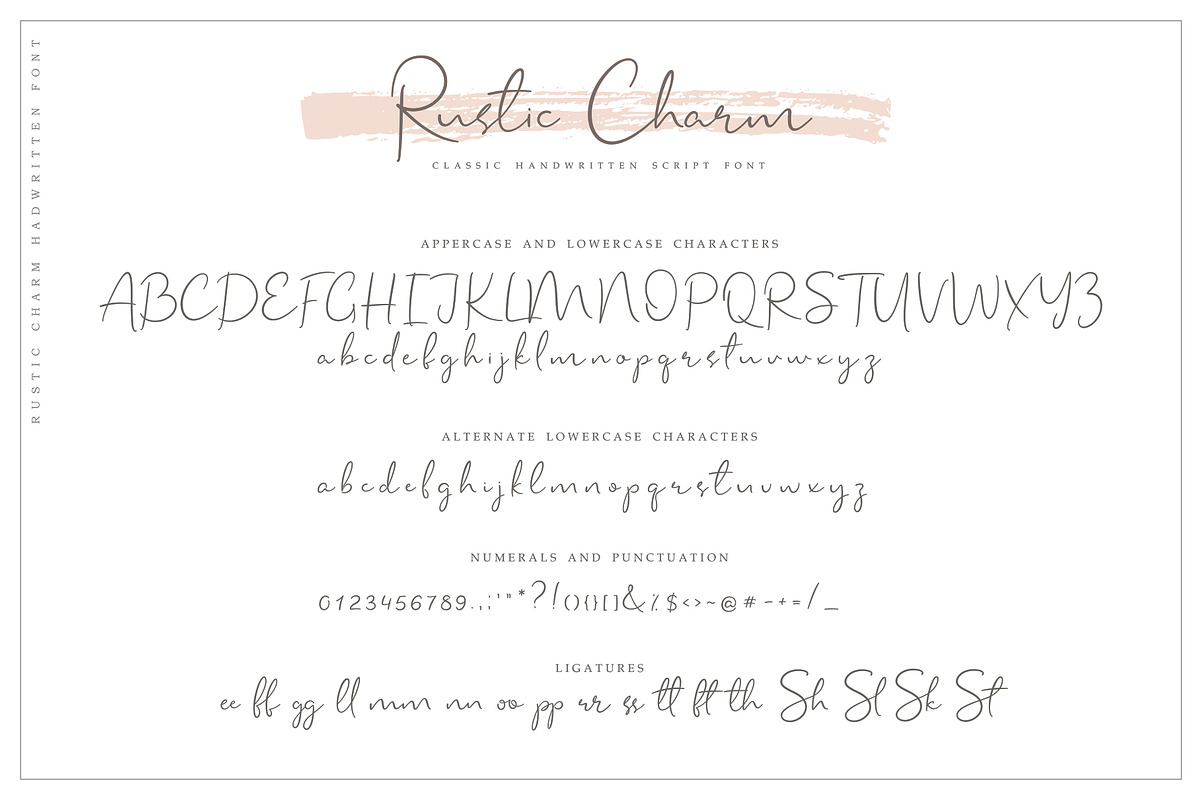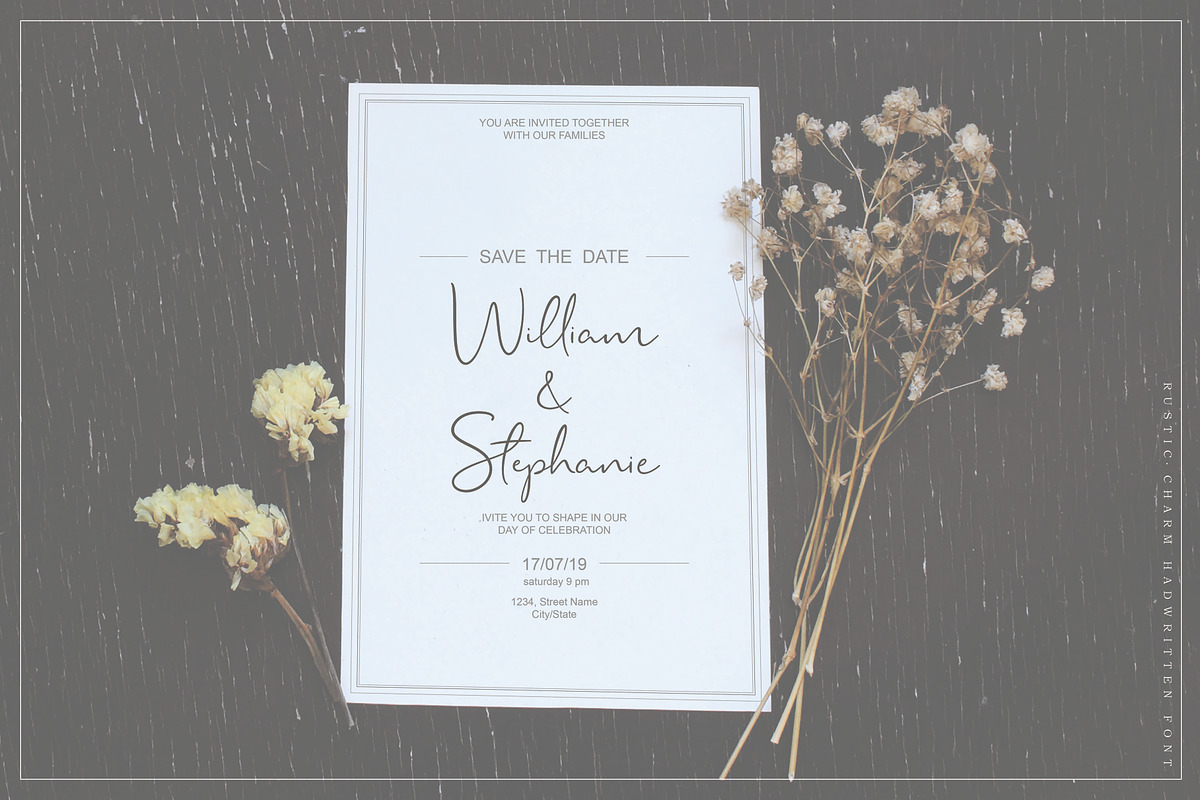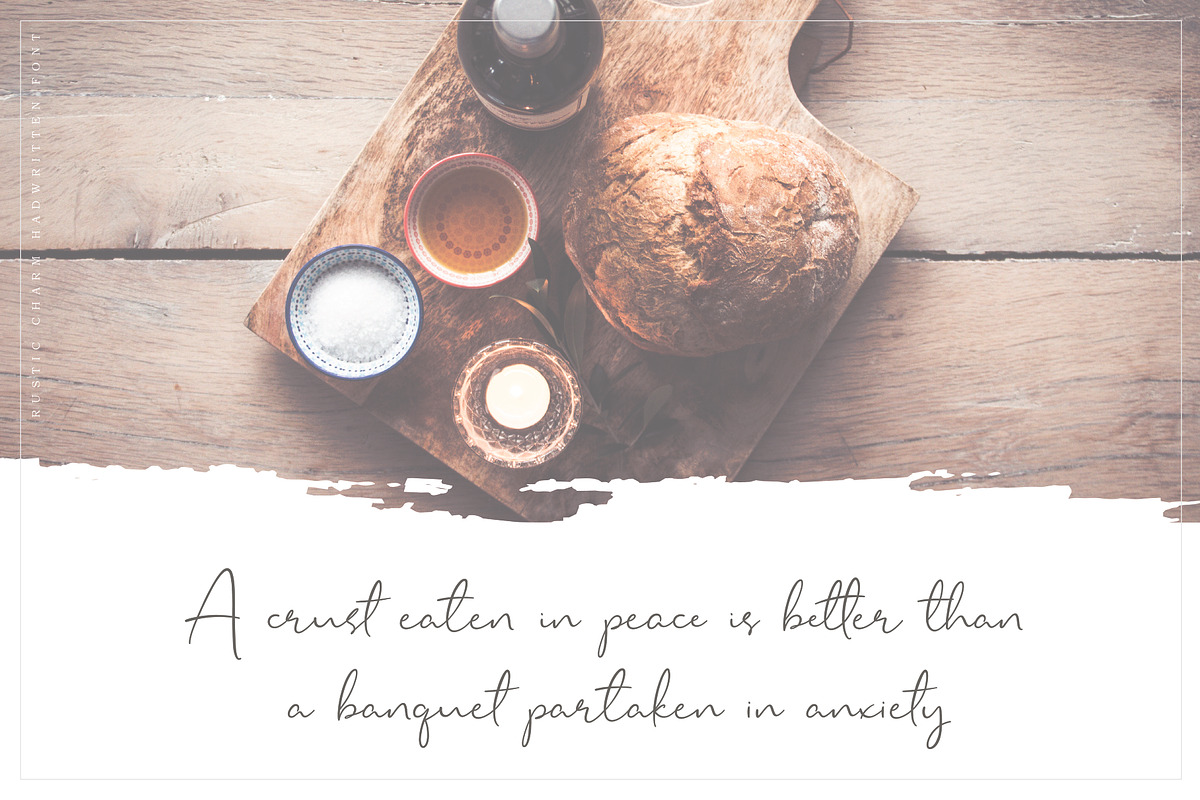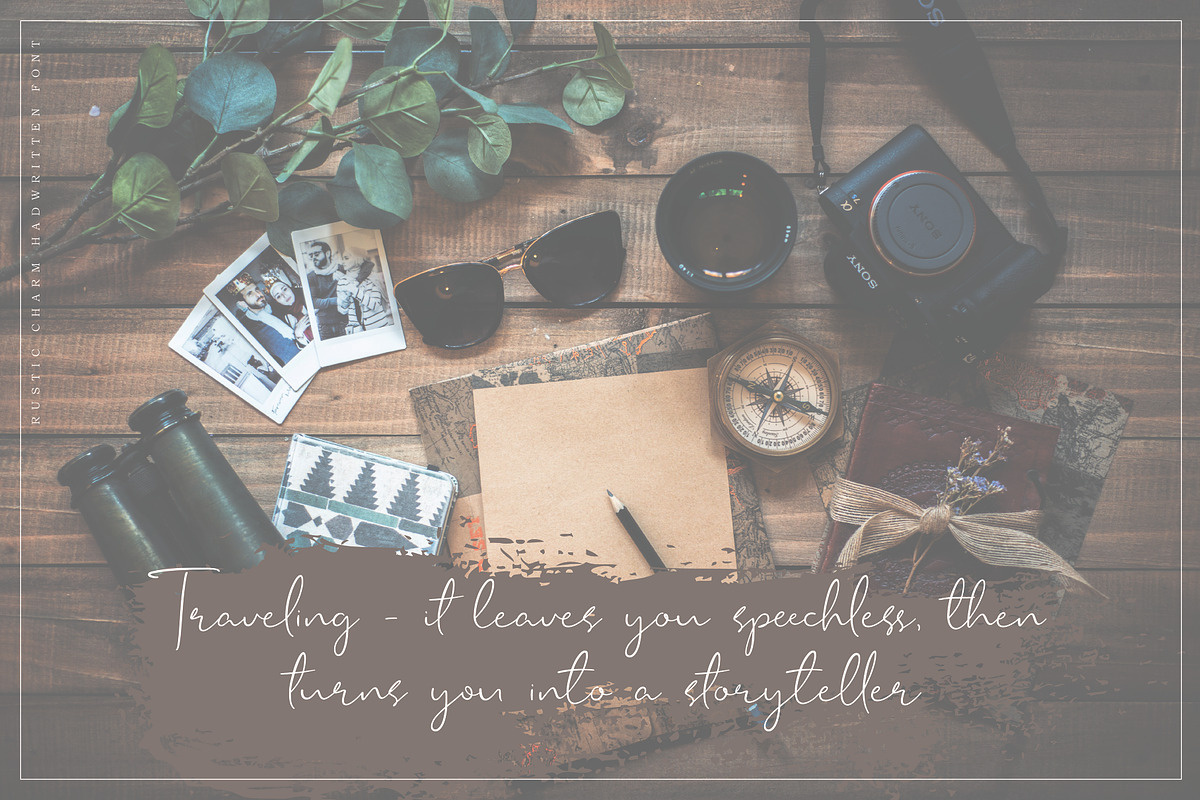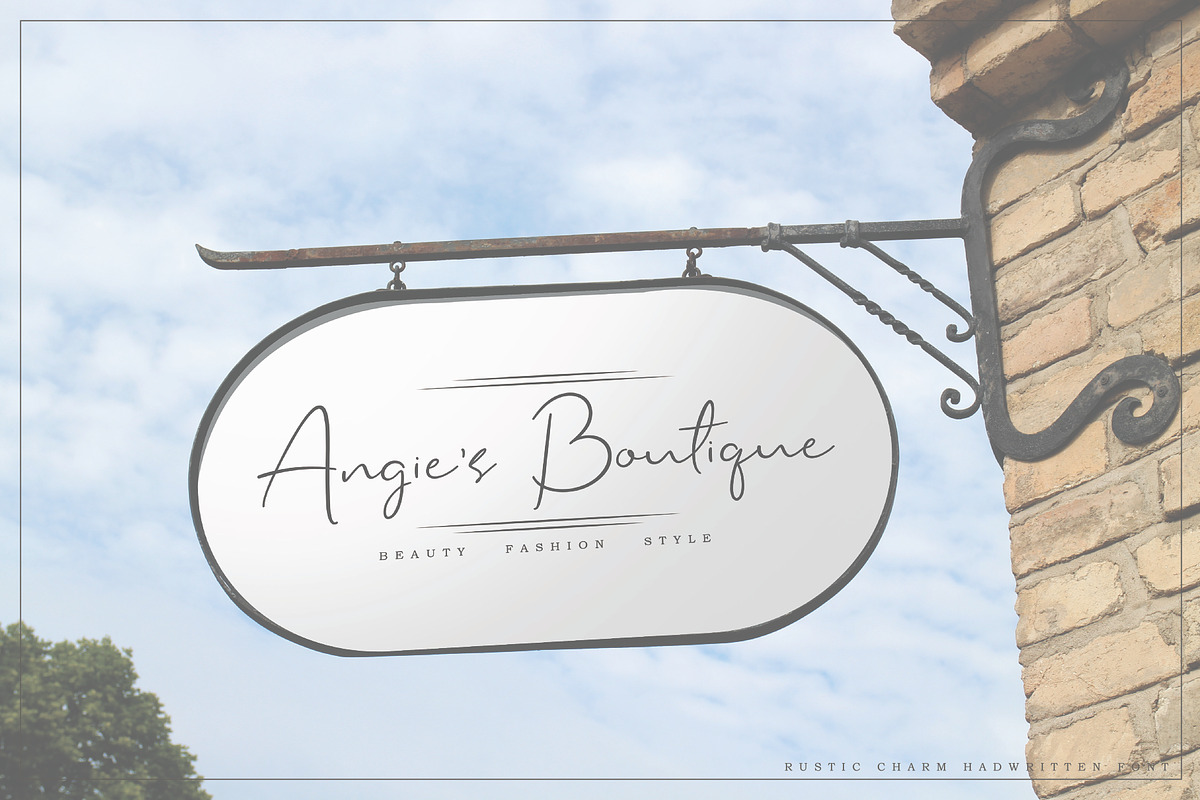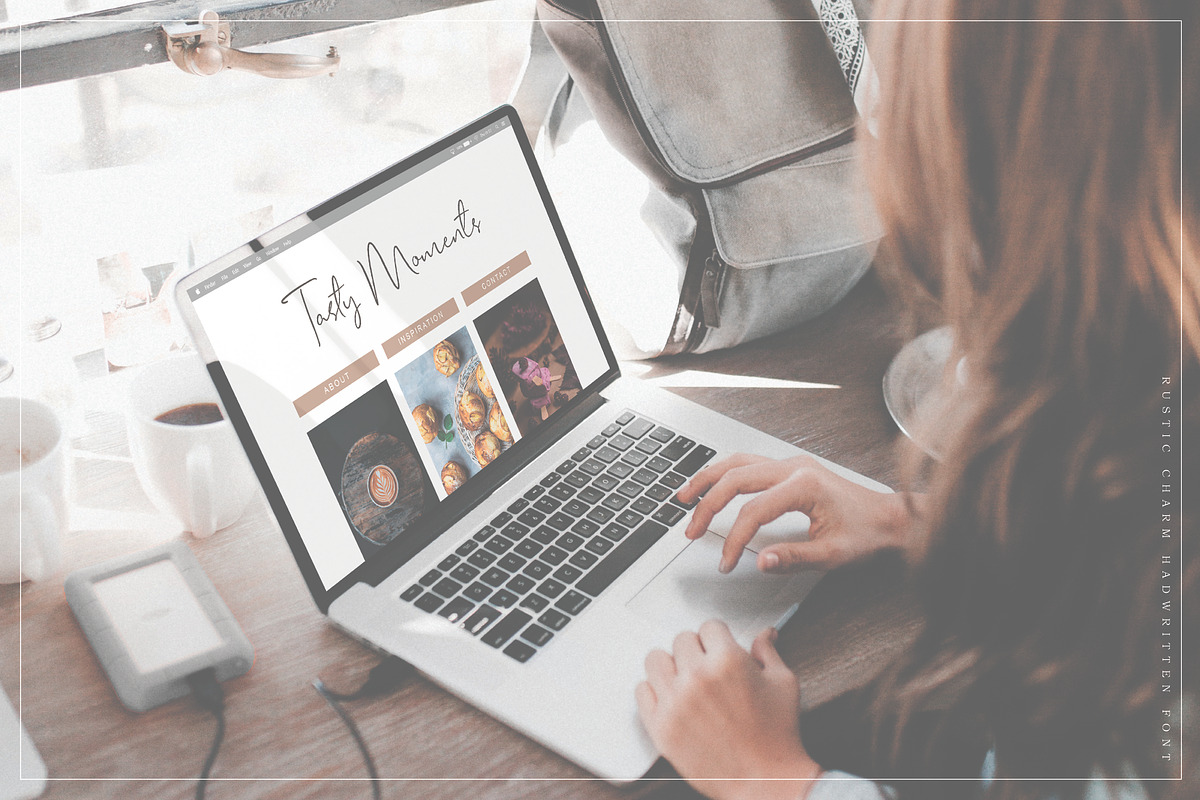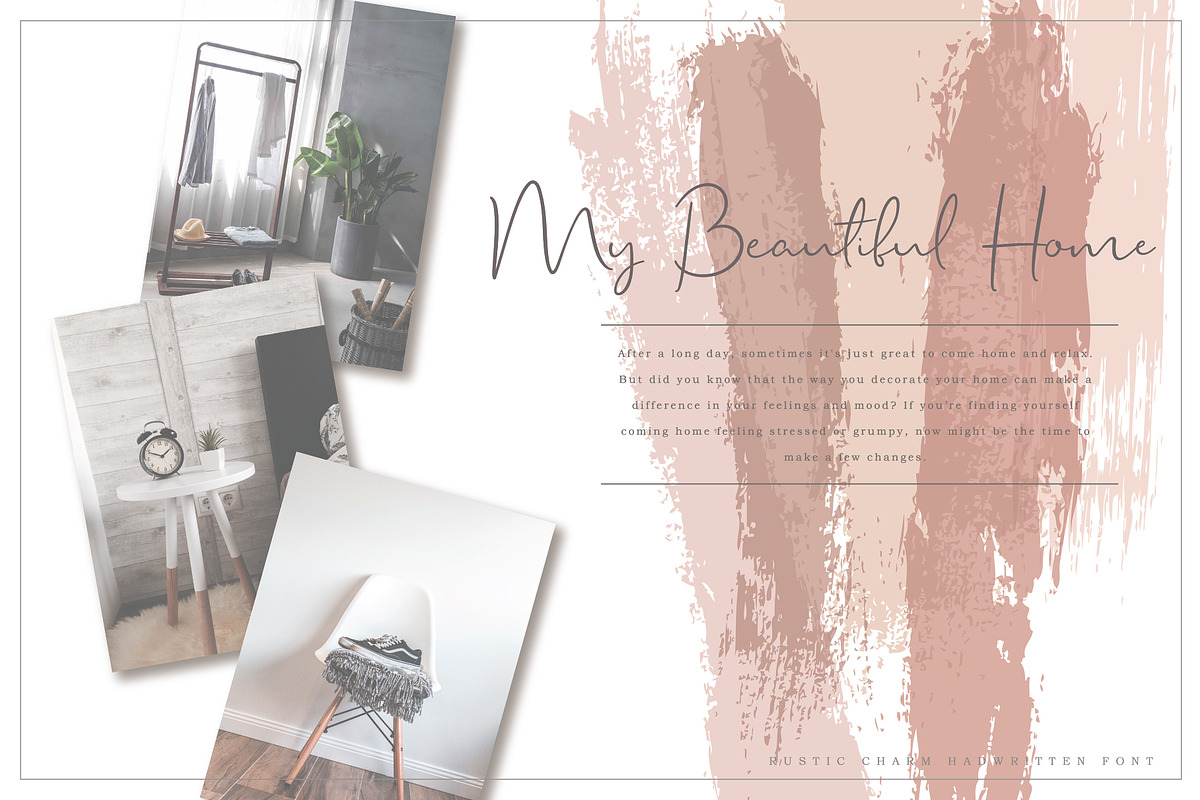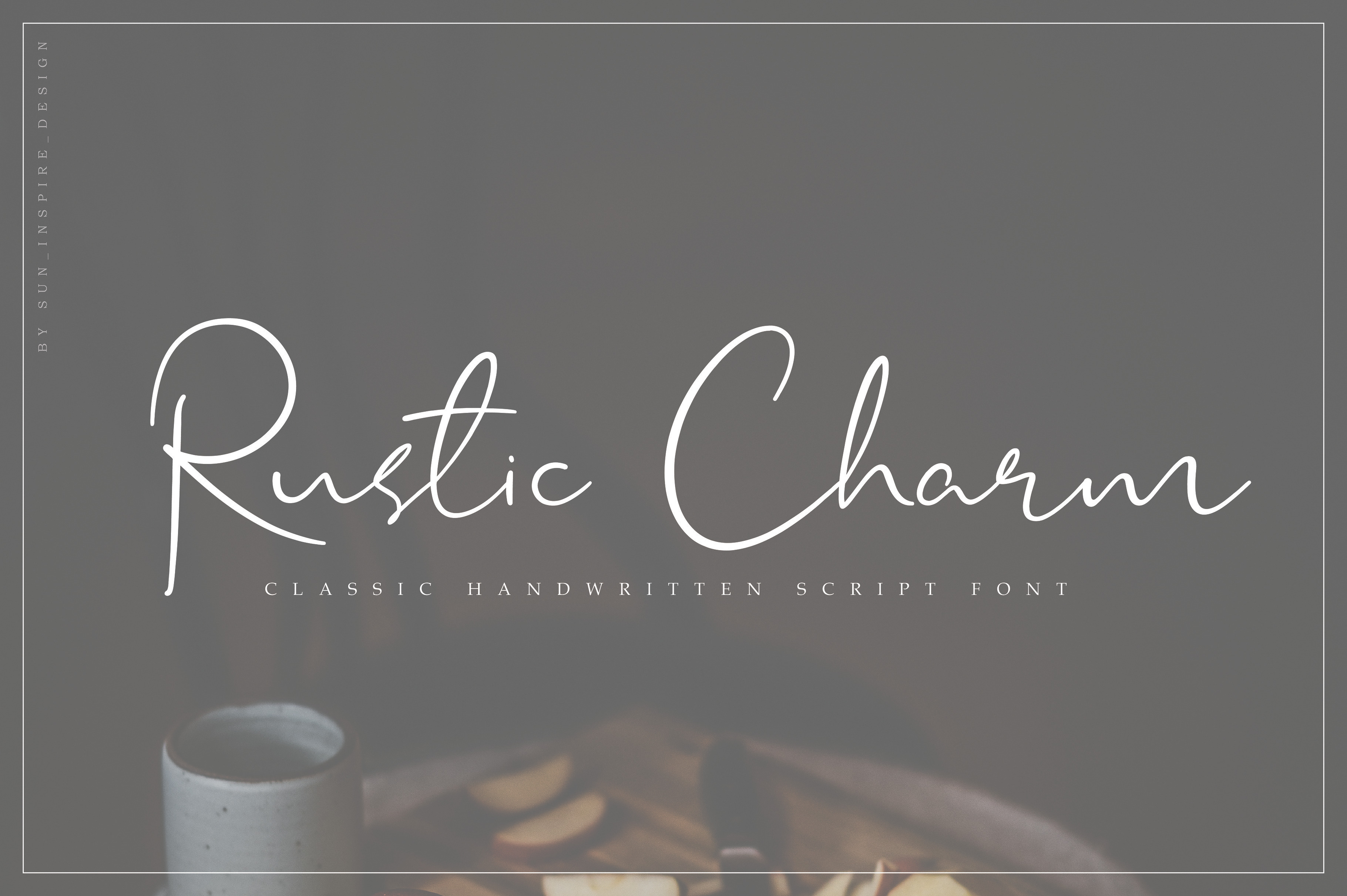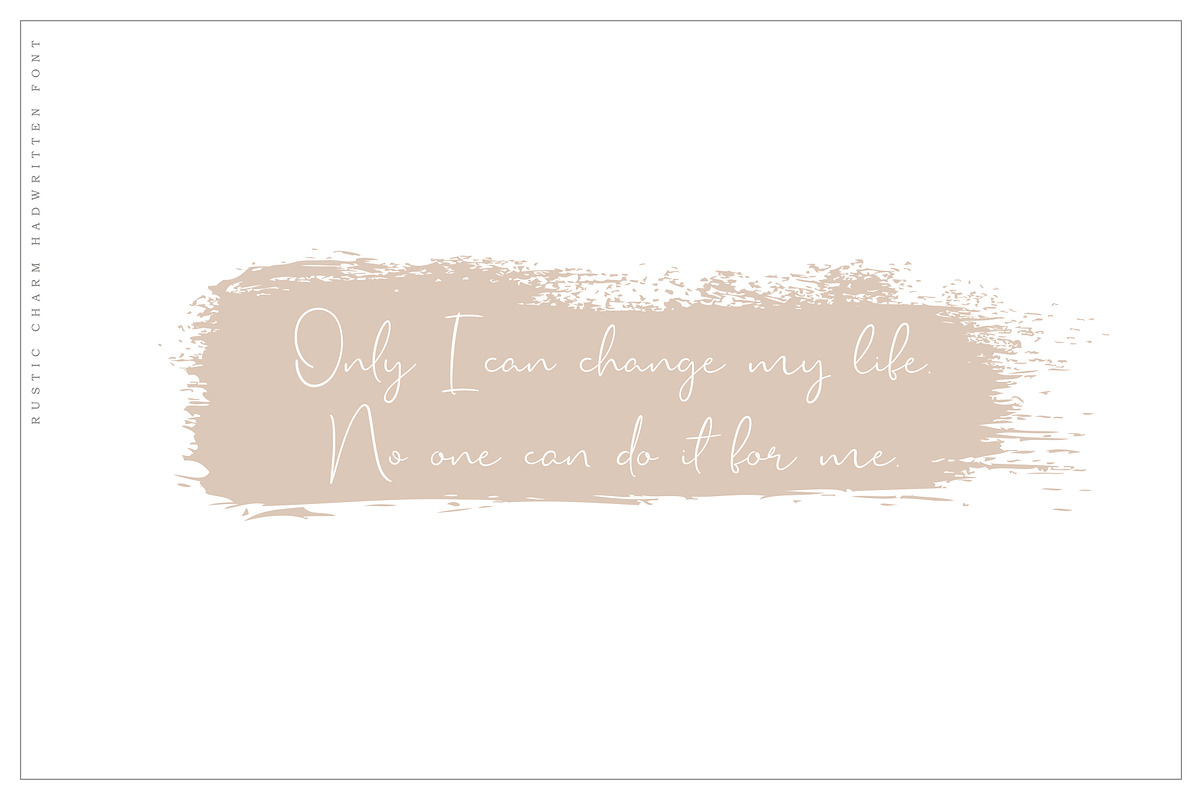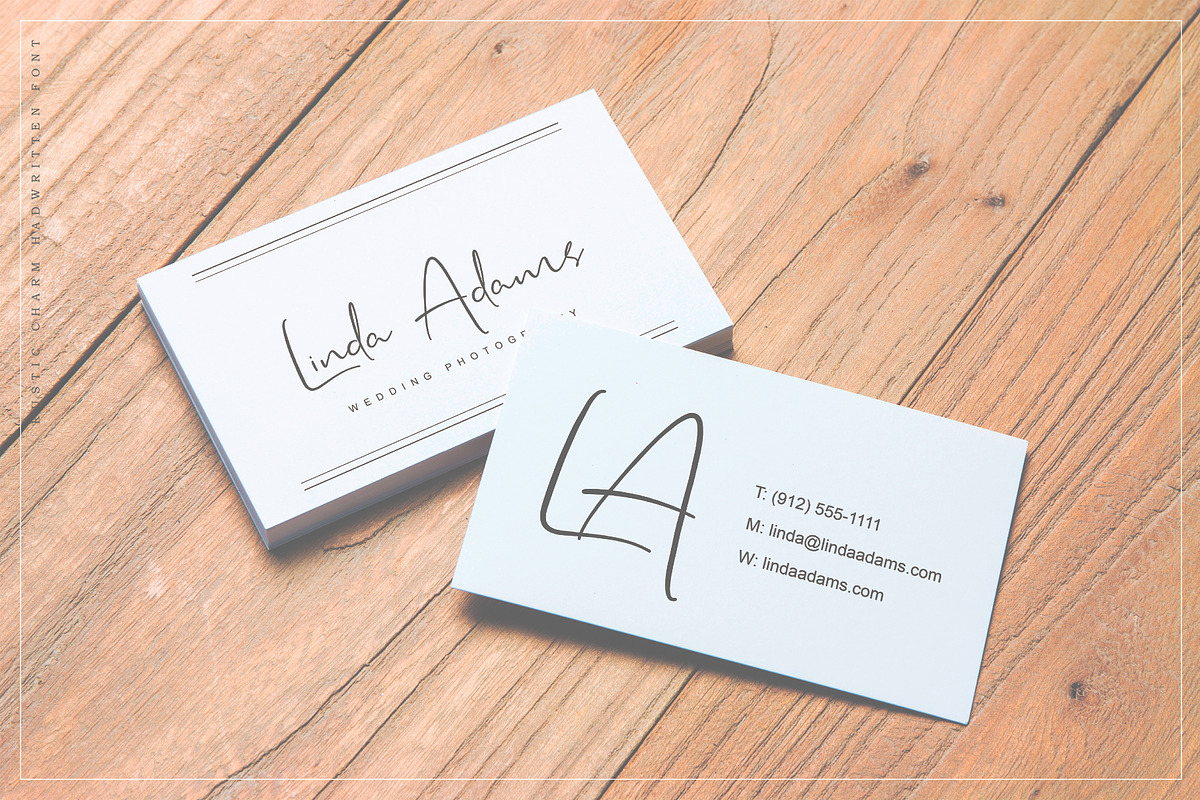
Rustic Charm Font
Rustic Charm Script Font
Rustic Charm is a classic handwritten font with romantic feeling. Modern and elegant, it will work perfect on wedding invitation, greeting card, blog posts, social media, business cards etc.
Font in .otf format contains a full set of upper & lowercase characters, numerals, punctuation and full set of alternate lowercase characters to give your work a personal handwritting feeling.